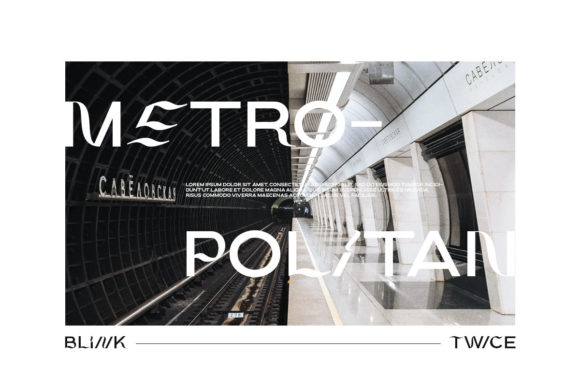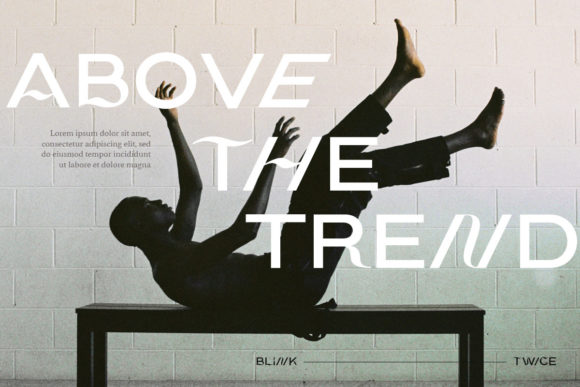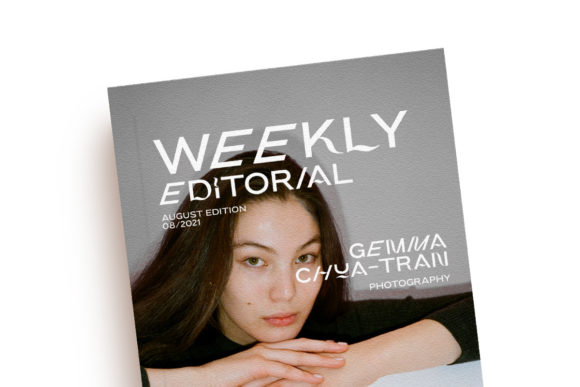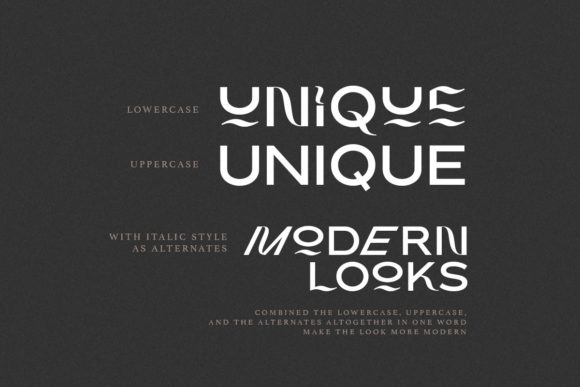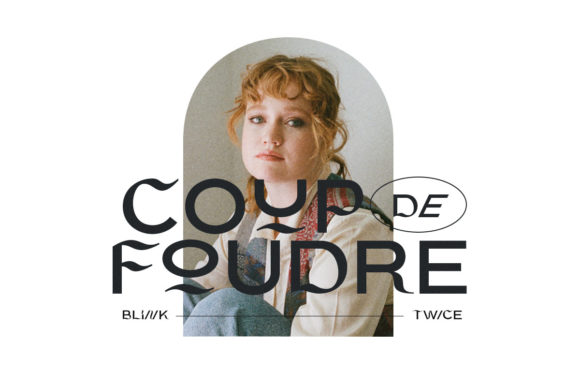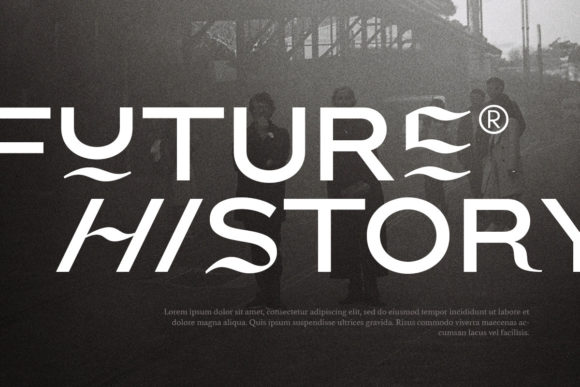
Blink Twice Font: The Ultimate Guide to this Modern Display Font
Are you tired of using the same old fonts in your designs? Look no further than the Blink Twice Font! This cool, modern, and assertive display font is sure to take your designs to the next level. With its incredibly distinct and timeless style, Blink Twice Font is the perfect choice for designers and crafters looking to create spectacular designs.
What is Blink Twice Font?
Blink Twice Font is a display font that is designed to make a statement. Its unique and modern style sets it apart from other fonts, making it perfect for use in a variety of design projects. Whether you’re creating a logo, poster, or social media graphic, Blink Twice Font is sure to grab attention and leave a lasting impression.
Key Features of Blink Twice Font
- Modern and Assertive: Blink Twice Font has a bold and confident style that is sure to make your designs stand out.
- Distinct and Timeless: The font’s unique style is both modern and timeless, making it perfect for use in a variety of design projects.
- Highly Versatile: Blink Twice Font can be used in a range of design projects, from logos and posters to social media graphics and more.
- Easily Readable: Despite its bold style, Blink Twice Font is easy to read, making it perfect for use in designs where you want to make a statement without sacrificing legibility.
Why Use Blink Twice Font?
So why should you use Blink Twice Font in your designs? Here are just a few reasons:
- Add a Touch of Modernity: Blink Twice Font is the perfect way to add a touch of modernity to your designs. Its unique style is sure to make your designs stand out from the crowd.
- Create a Lasting Impression: With Blink Twice Font, you can create designs that are sure to leave a lasting impression. Its bold and confident style is perfect for making a statement.
- Perfect for Display Text: Blink Twice Font is specifically designed for use as display text, making it perfect for use in headlines, titles, and more.
How to Use Blink Twice Font
Using Blink Twice Font in your designs is easy! Here are a few tips to get you started:
- Pair it with a Simple Font: Blink Twice Font is bold and attention-grabbing, so it’s best to pair it with a simpler font for body text.
- Use it for Headlines and Titles: Blink Twice Font is perfect for use in headlines and titles, where you want to make a bold statement.
- Experiment with Different Colors: Blink Twice Font looks great in a range of colors, so don’t be afraid to experiment and find the perfect color for your design.
Tips and Tricks for Working with Blink Twice Font
Here are a few more tips and tricks for working with Blink Twice Font:
- Adjust the Tracking: Blink Twice Font looks great with a bit of tracking adjustment, so experiment with different tracking settings to find the perfect look for your design.
- Use it in Combination with Other Fonts: Blink Twice Font can be used in combination with other fonts to create a unique and interesting design.
- Don’t be Afraid to Get Creative: Blink Twice Font is a versatile font that can be used in a range of design projects, so don’t be afraid to get creative and try new things!
In conclusion, Blink Twice Font is a cool, modern, and assertive display font that is sure to take your designs to the next level. With its incredibly distinct and timeless style, Blink Twice Font is the perfect choice for designers and crafters looking to create spectacular designs. So why wait? Give Blink Twice Font a try today and see the difference it can make in your designs!